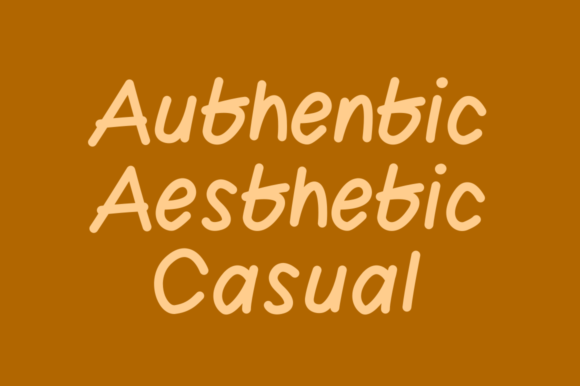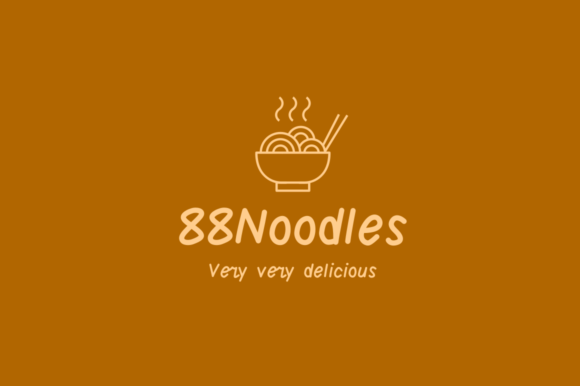
RM Market Font
db-ku.com - Script & Handwritten -- RM Market is a gorgeous handwritten font, featuring natural characters and neat vibes. This font tries to combine the impression of cleanliness in every stroke with a strong touch of authenticity. Whether you use it for cartoon related designs, children games or just any creation that requires a lovely touch, this font will be an amazing choice.